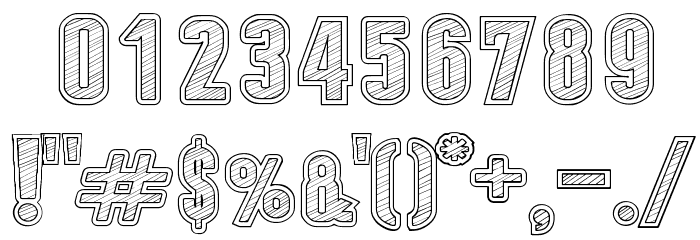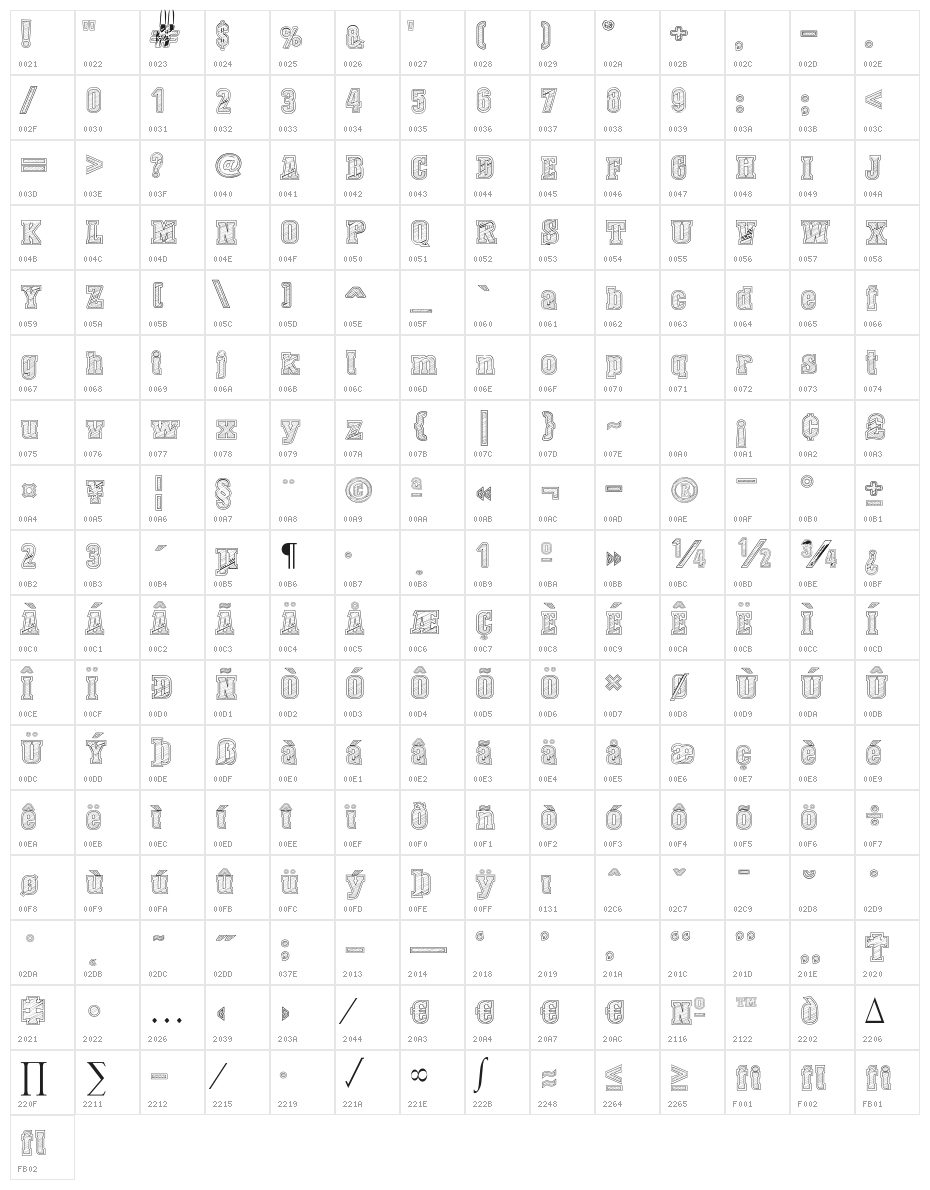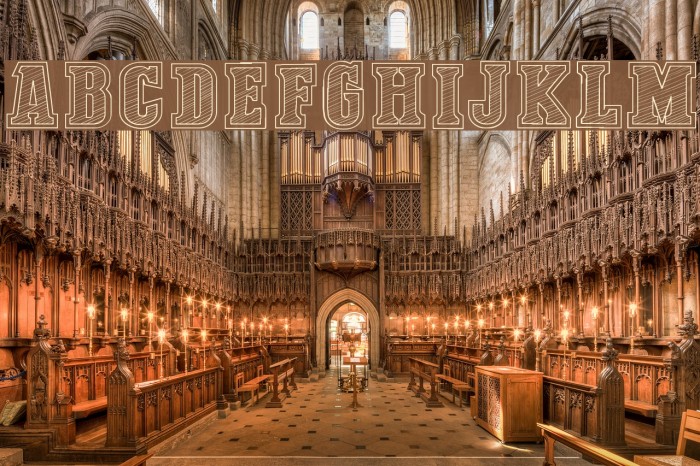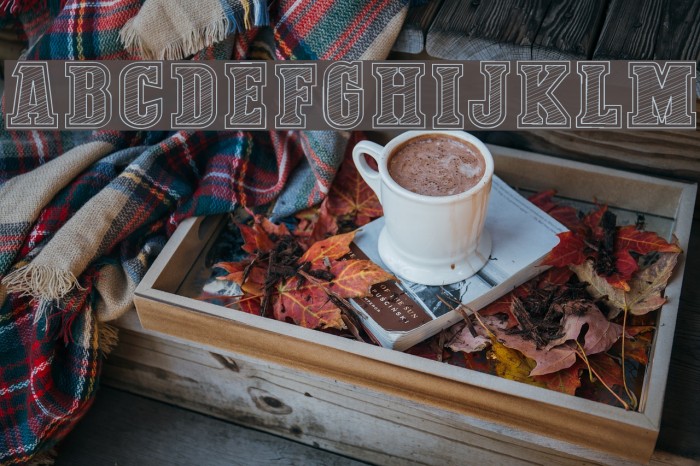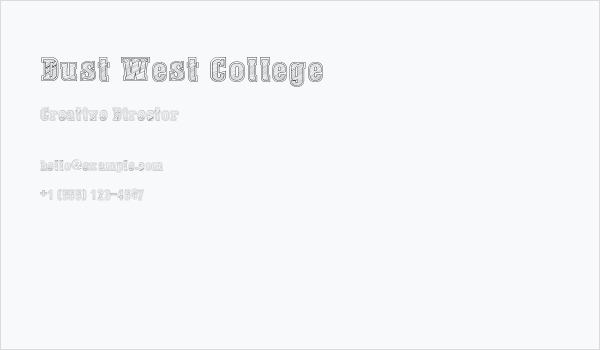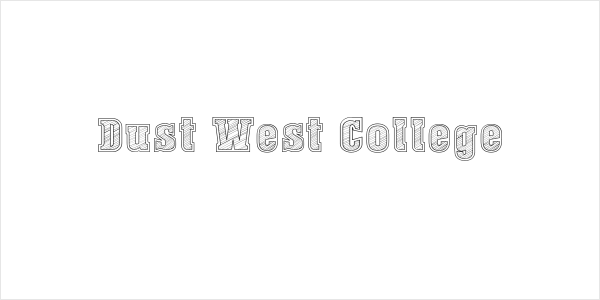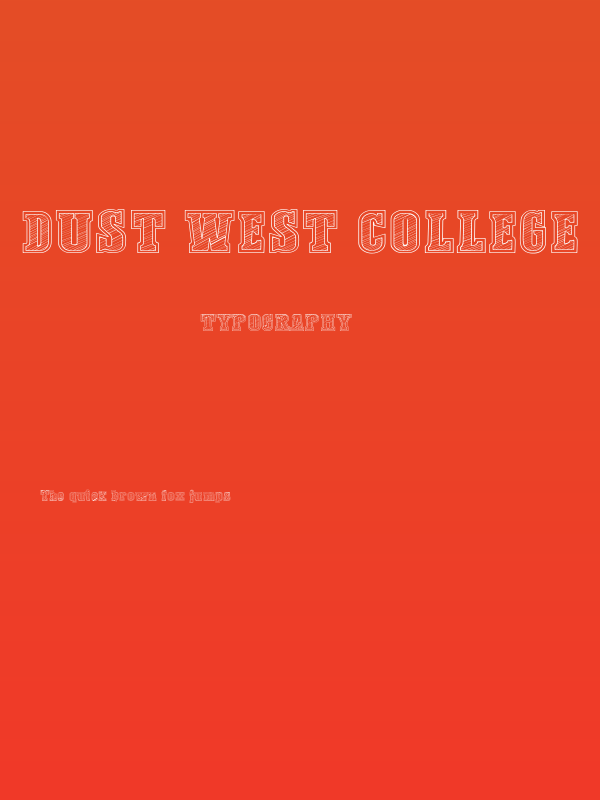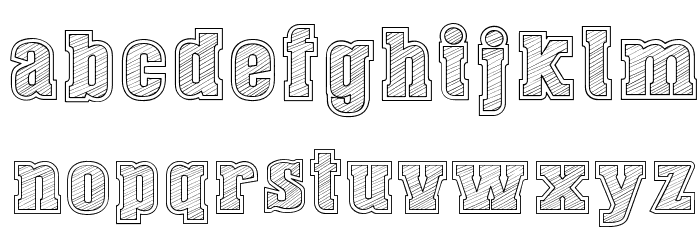
Dust West College Font
Dust West College Description
This font features a bold, decorative style with a distinct outline and a shaded interior, giving it a three-dimensional appearance. The uppercase and lowercase letters maintain a consistent design, with strong, angular serifs that enhance its boldness. The numbers and special characters follow the same stylistic approach, ensuring uniformity across all glyphs. The font's unique texture and shadowing create a vintage, collegiate feel, reminiscent of classic sports or university branding. Its eye-catching design makes it suitable for projects that require a standout, retro aesthetic.
| Proposed Projects | Ideal for sports team branding, university merchandise, retro-themed posters, and event invitations. |